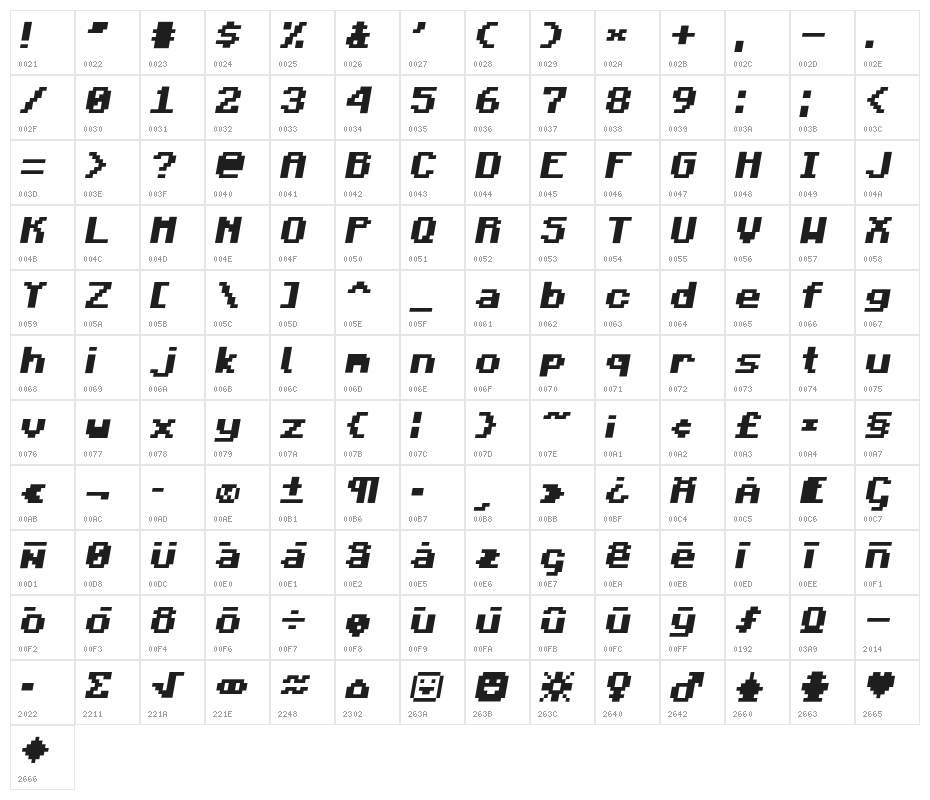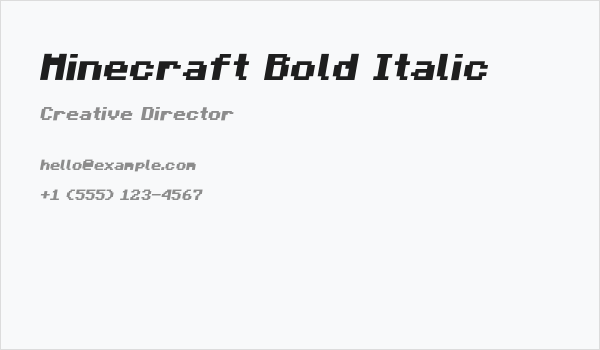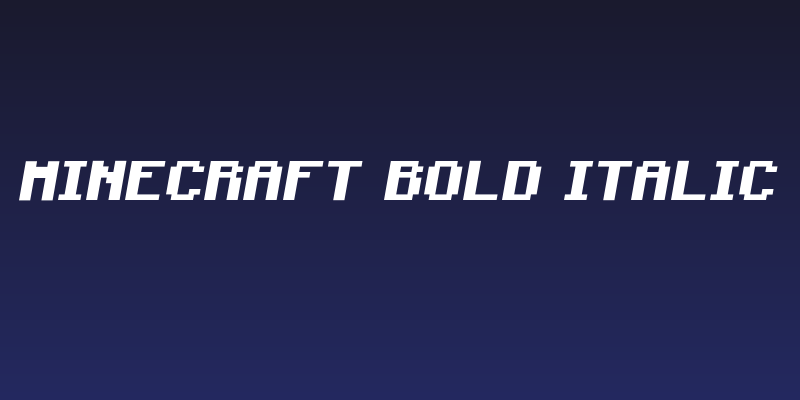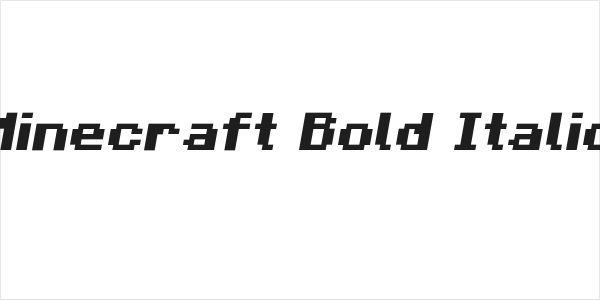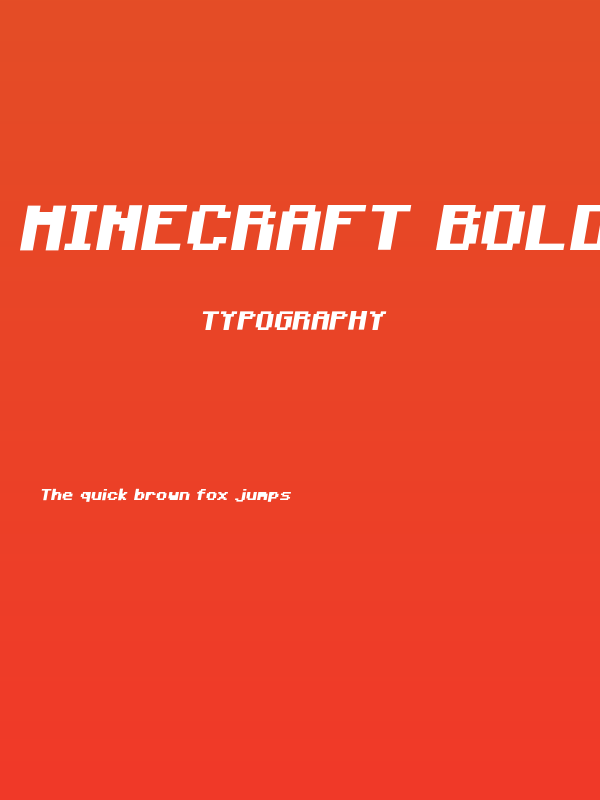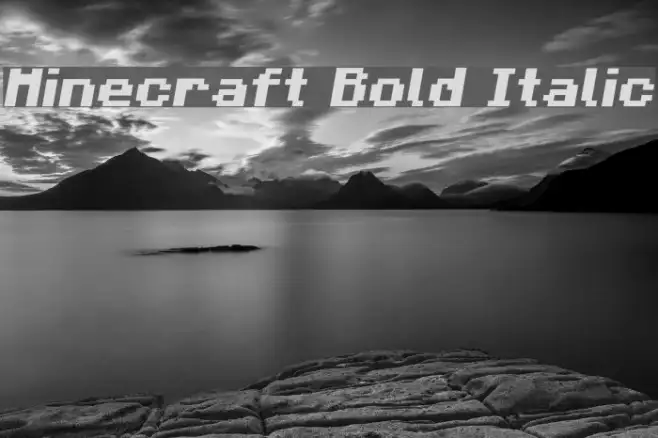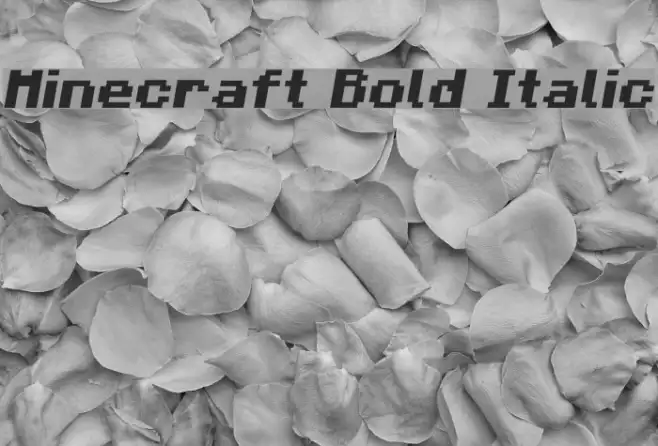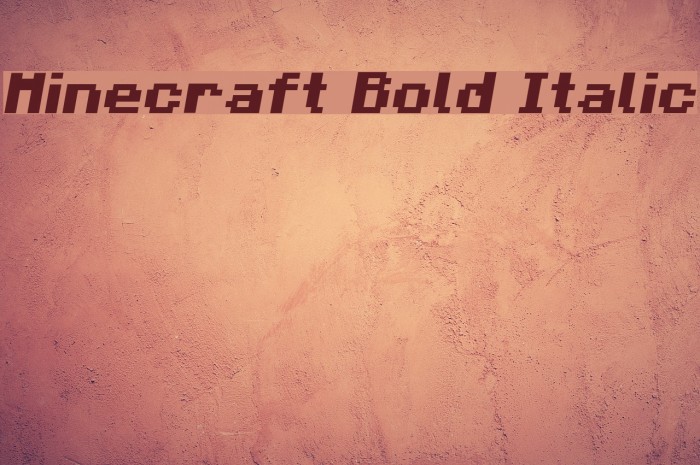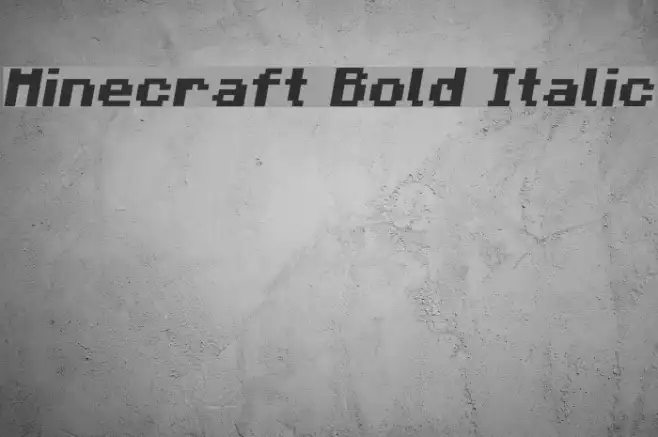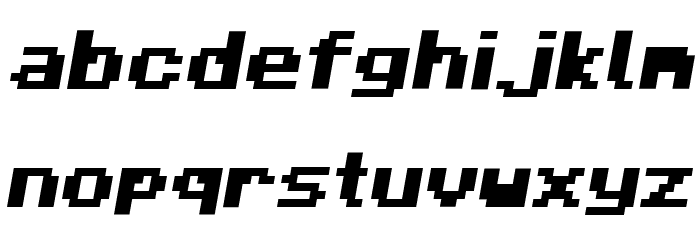
Minecraft Bold Italic Font
Minecraft Bold Italic Description
This font features a bold and italicized style with a pixelated, blocky appearance reminiscent of retro video games. The characters are uniformly structured with sharp, angular edges, giving it a digital and geometric look. The uppercase and lowercase letters maintain a consistent height, while the numbers and special characters align seamlessly with the overall design. The font's distinct style is both playful and modern, making it ideal for projects that require a touch of nostalgia or a tech-inspired aesthetic.
| Overall Style | Modern, Retro |
| Proposed Projects | Ideal for video game designs, digital art projects, retro-themed posters, and tech-related branding. |